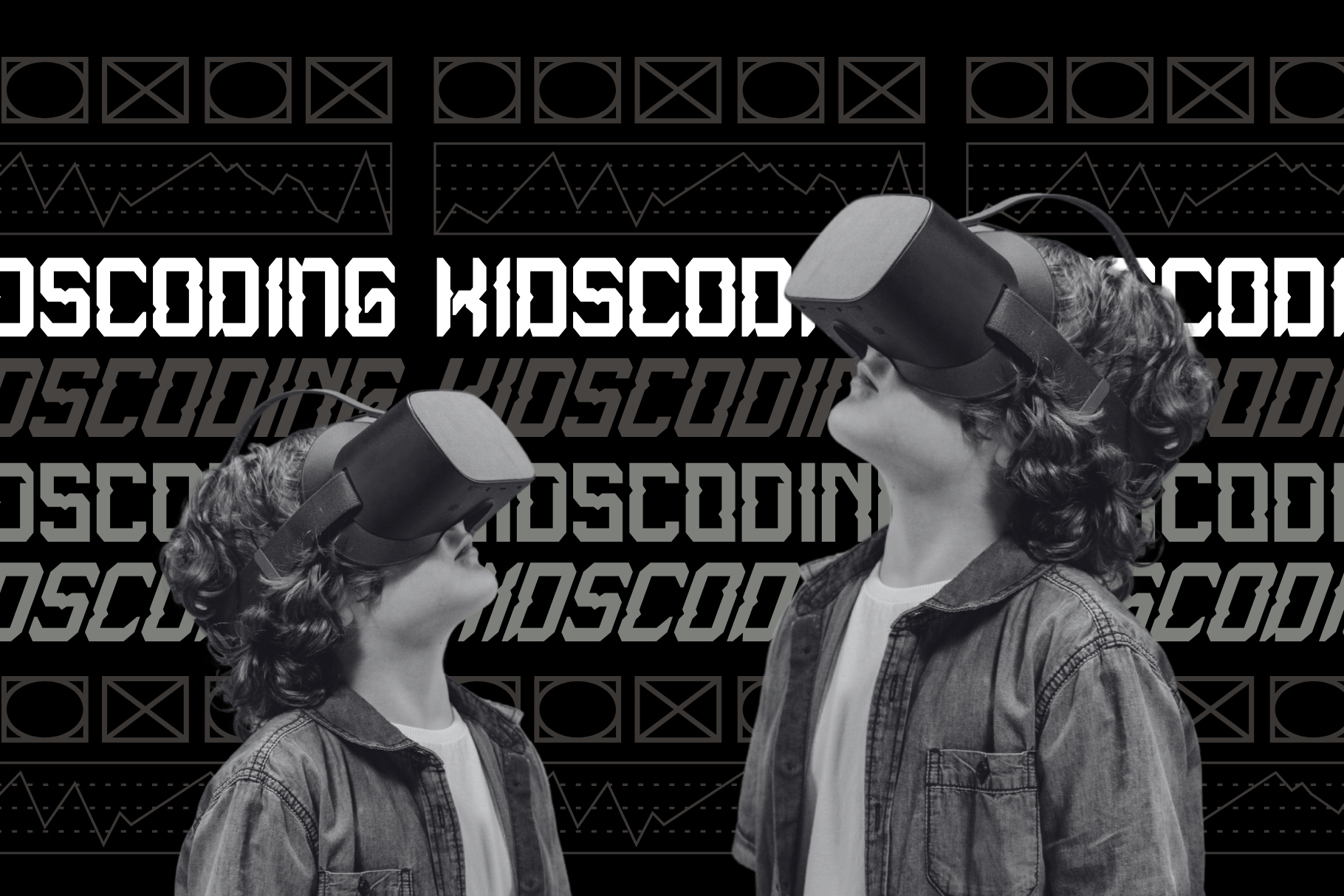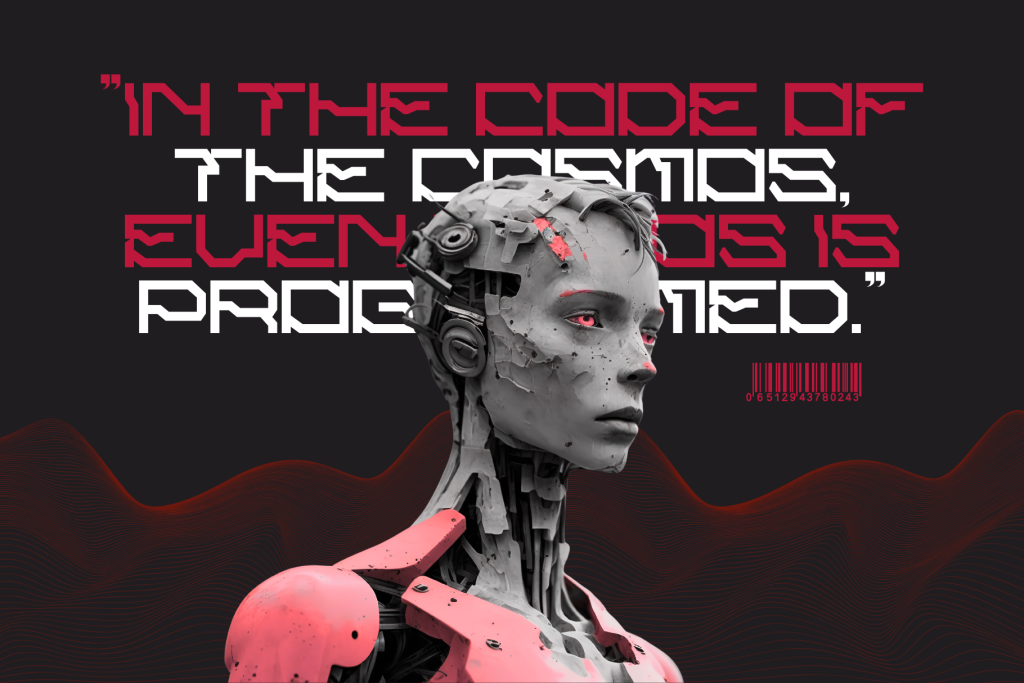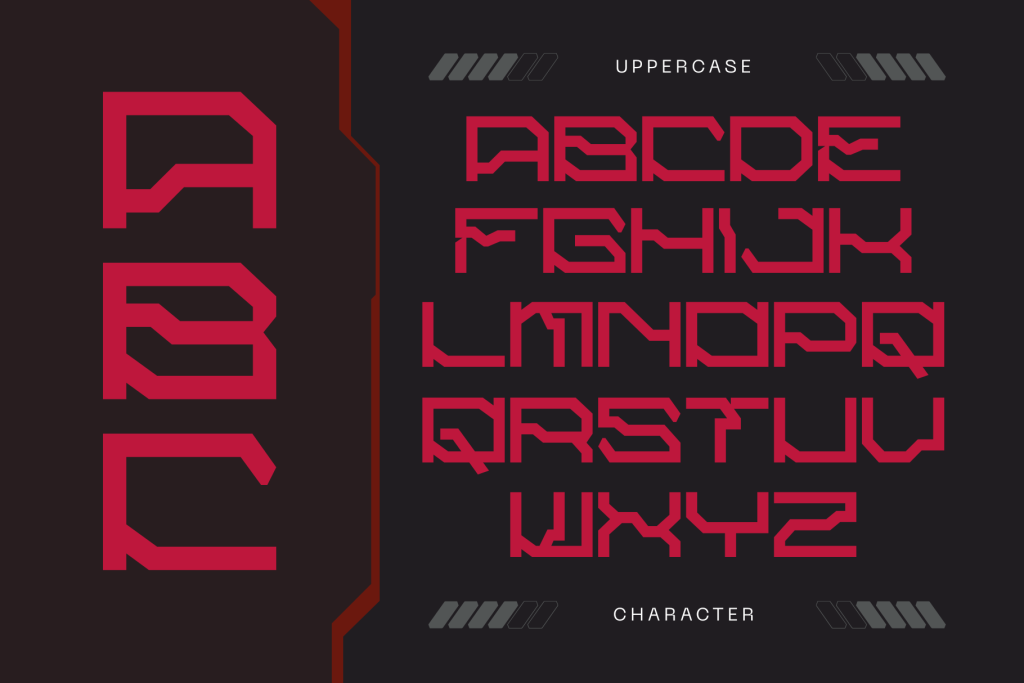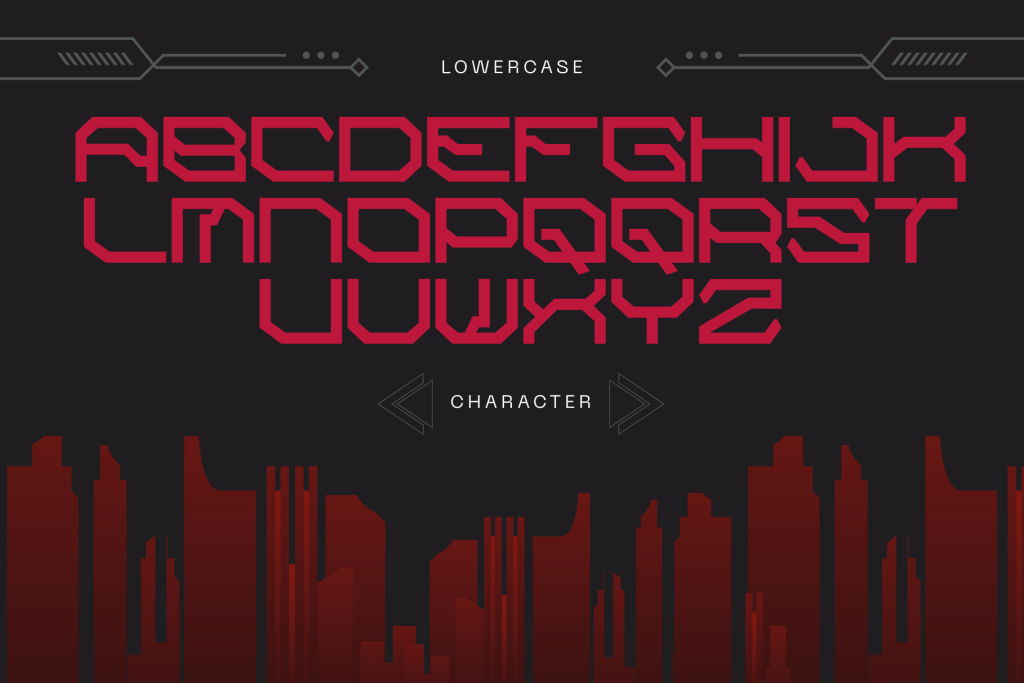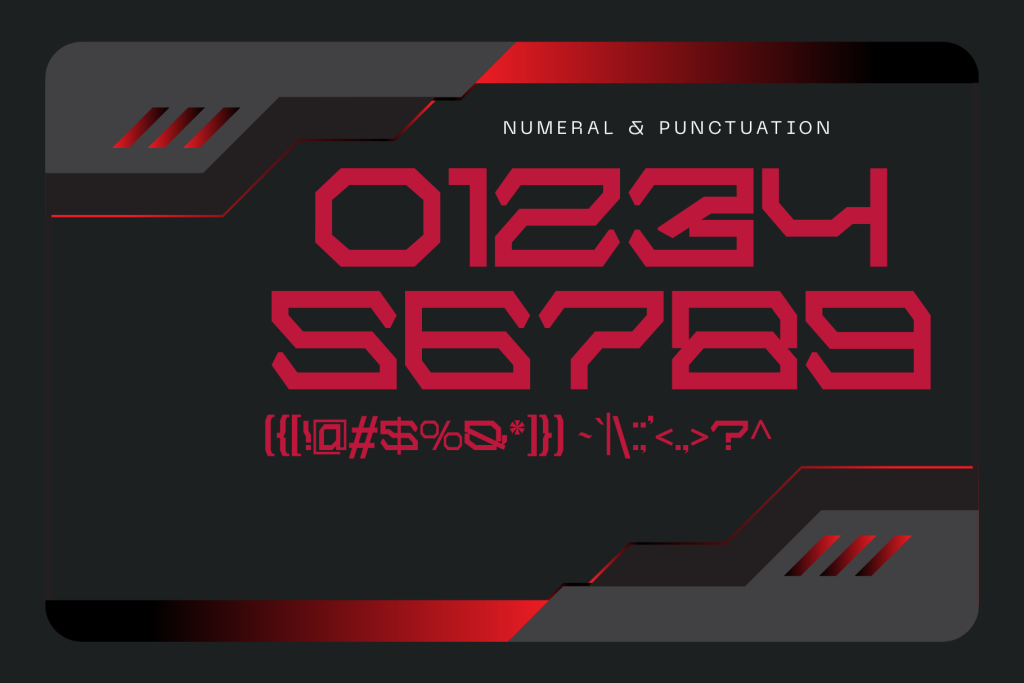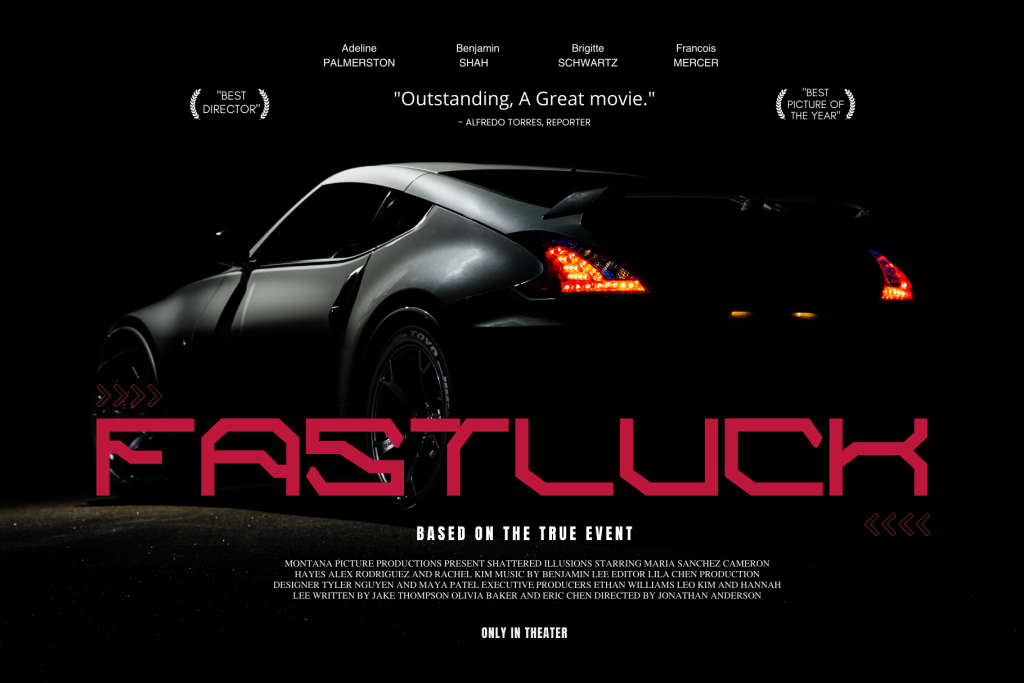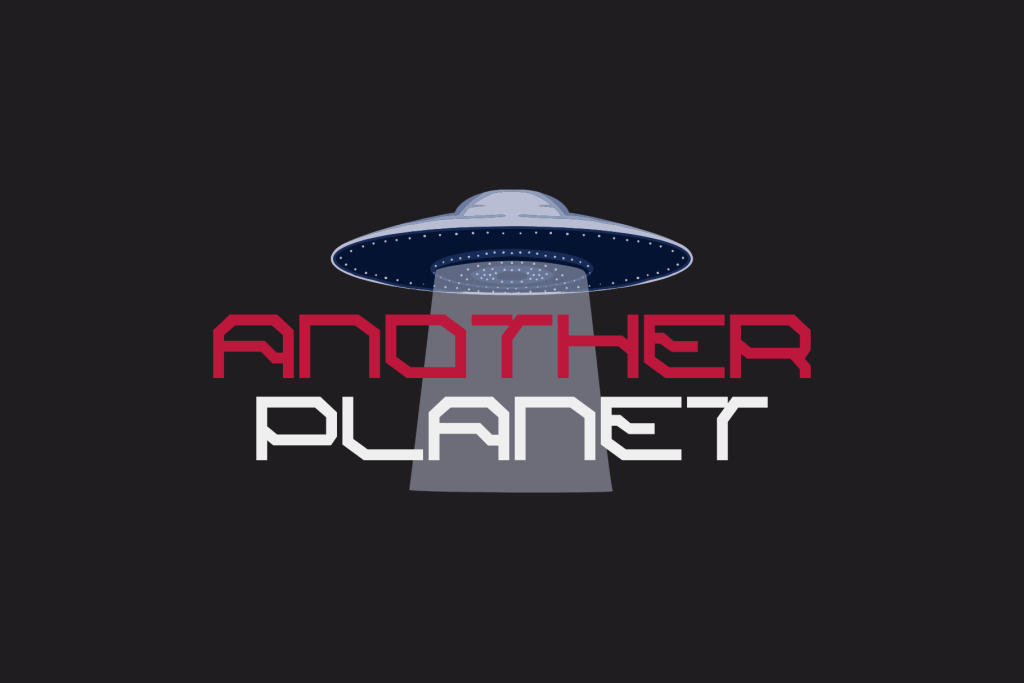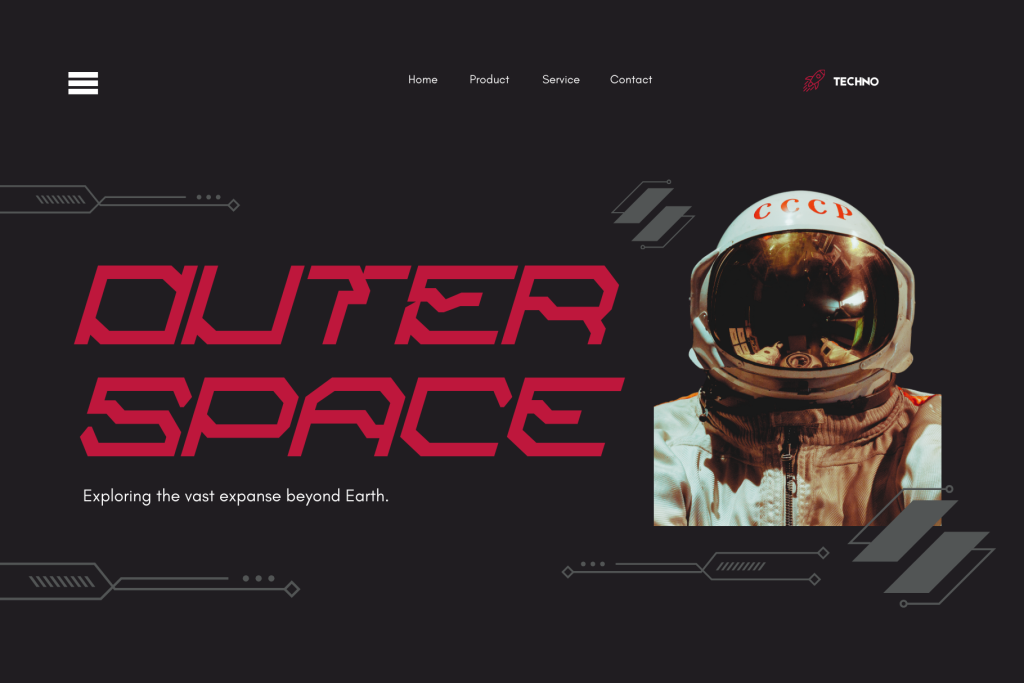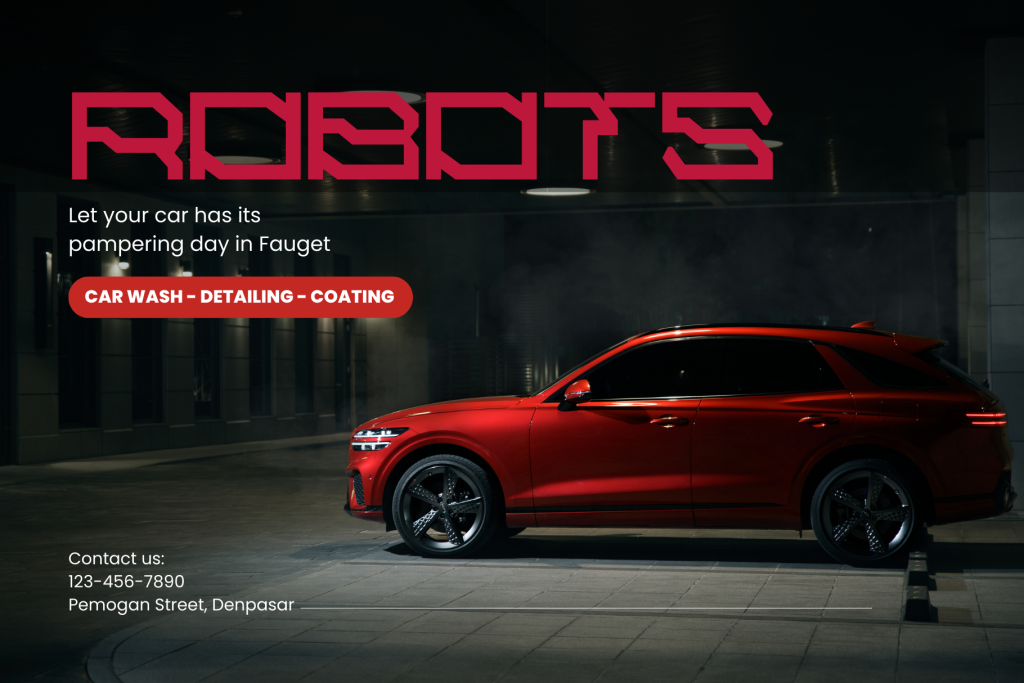
Alpha Cyberpunk – Modern Sci-fi Font
Alpha Cyberpunk offers beautiful typographic harmony for a diversity of design projects, including logos & branding, social media posts, advertisements & product designs.
• Multilingual Support
• Regular & Italic Font
• Modern Futuristic style
Alpha Cyberpunk is a modern futuristic display font designed for high-tech, cyber-themed, and sci-fi projects. With bold geometric forms and sharp angles, it evokes the energy of neon cities, AI systems, and robotic interfaces. Perfect for titles, UI design, posters, and game graphics, Alpha Cyberpunk blends digital precision with a gritty tech aesthetic, making it ideal for cyberpunk universes and futuristic branding.